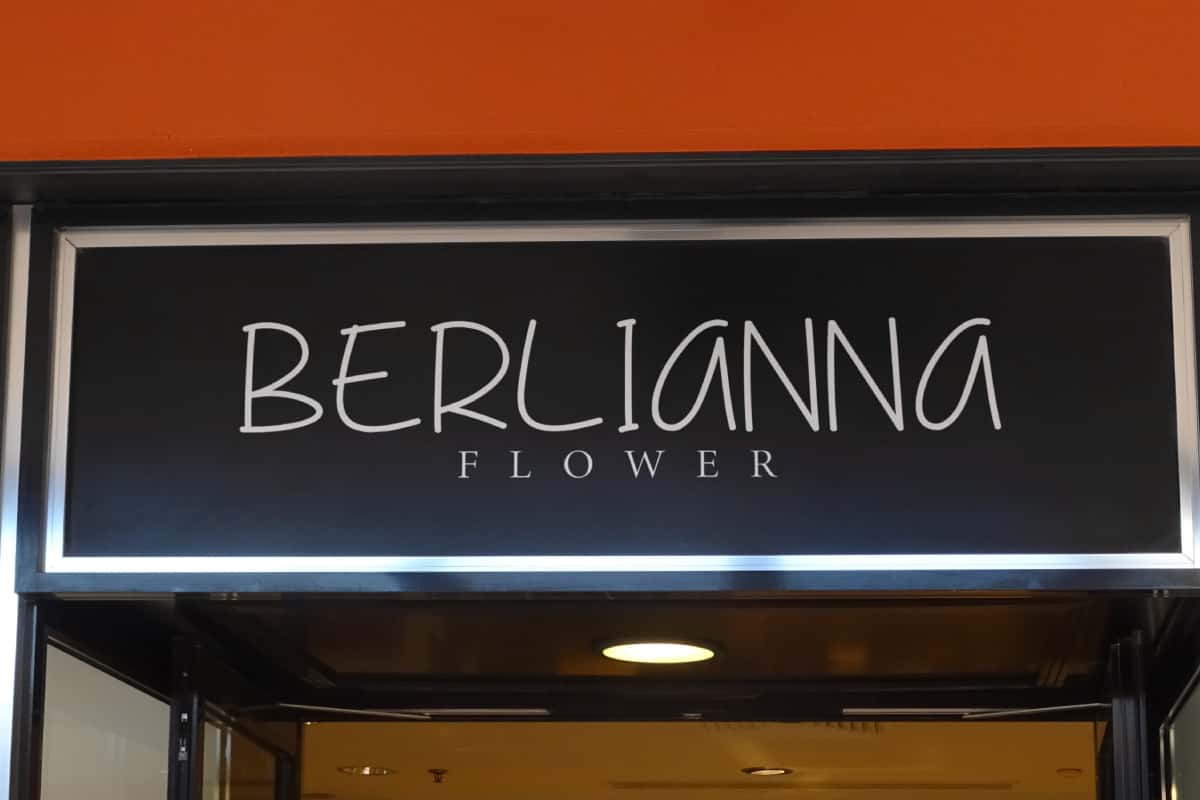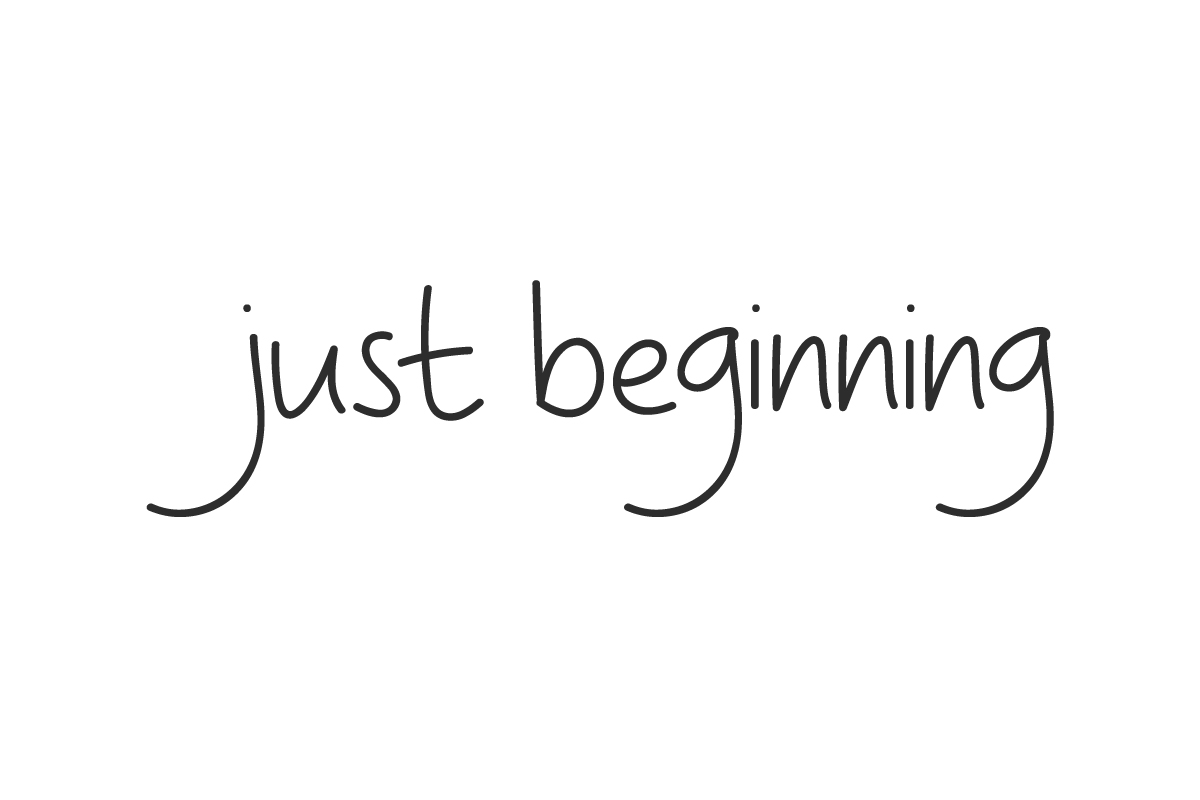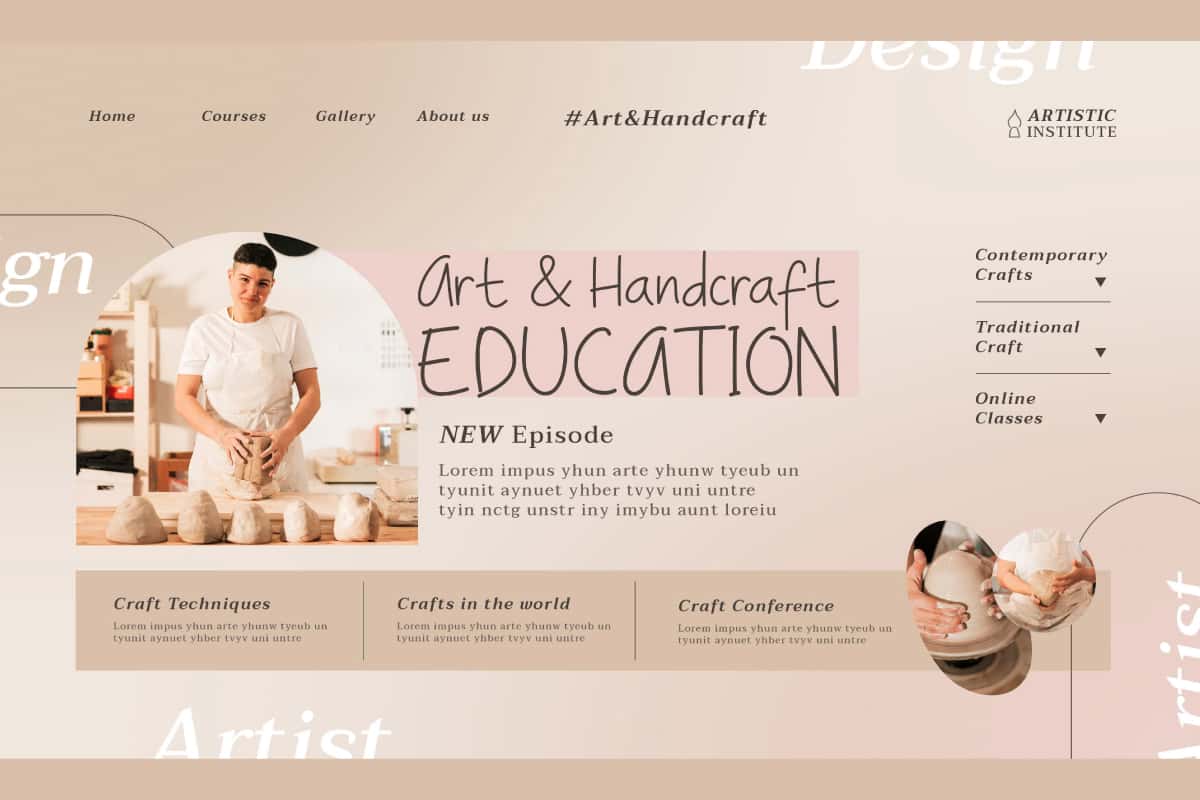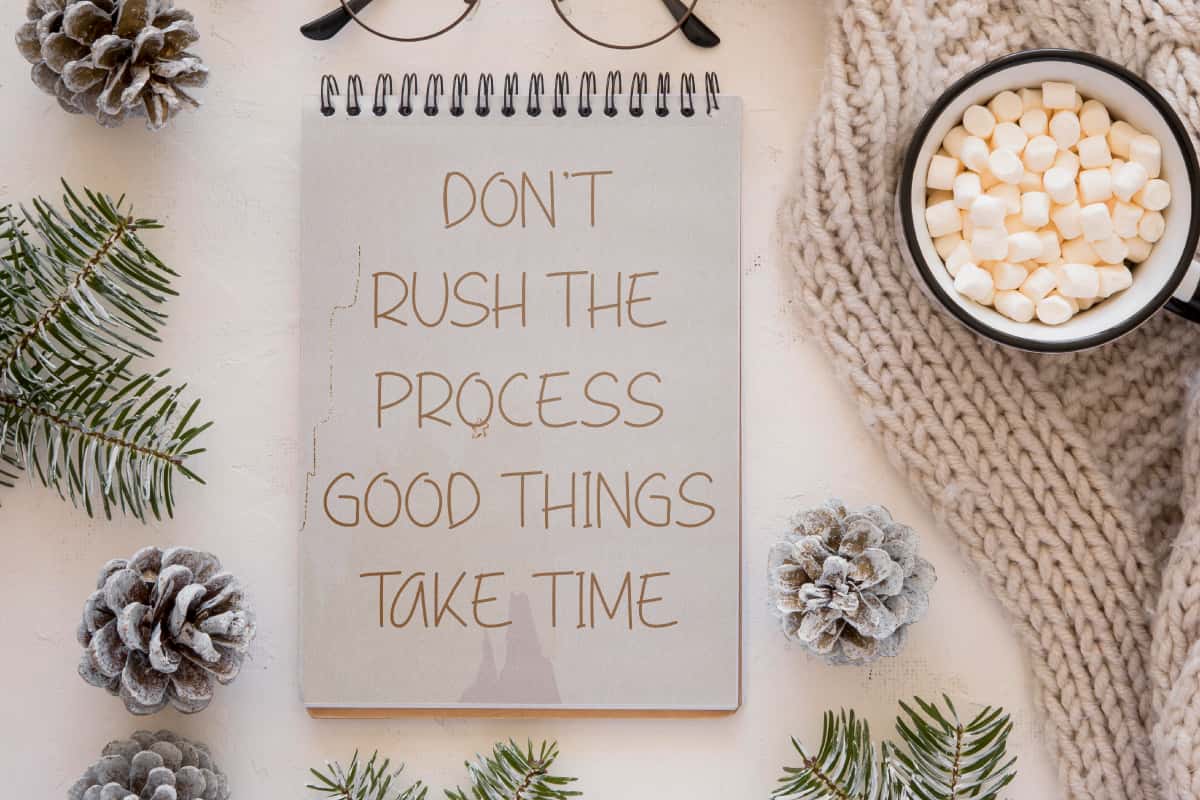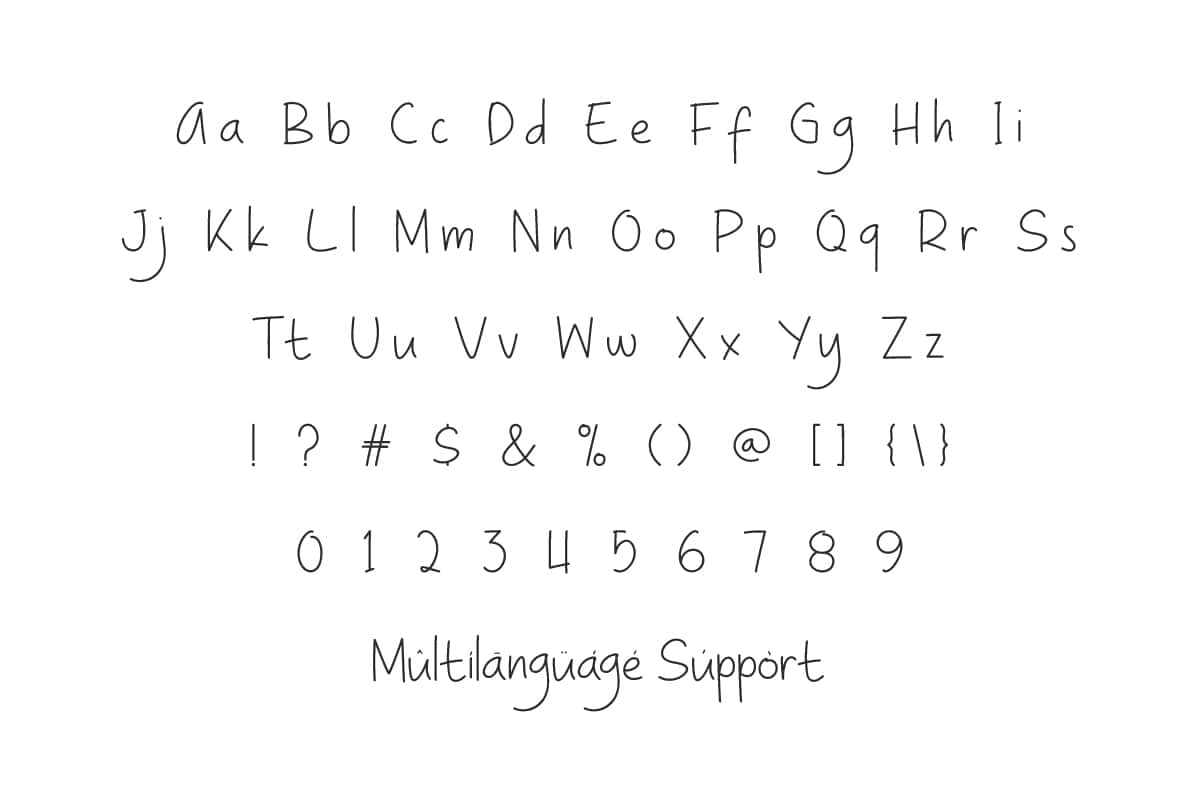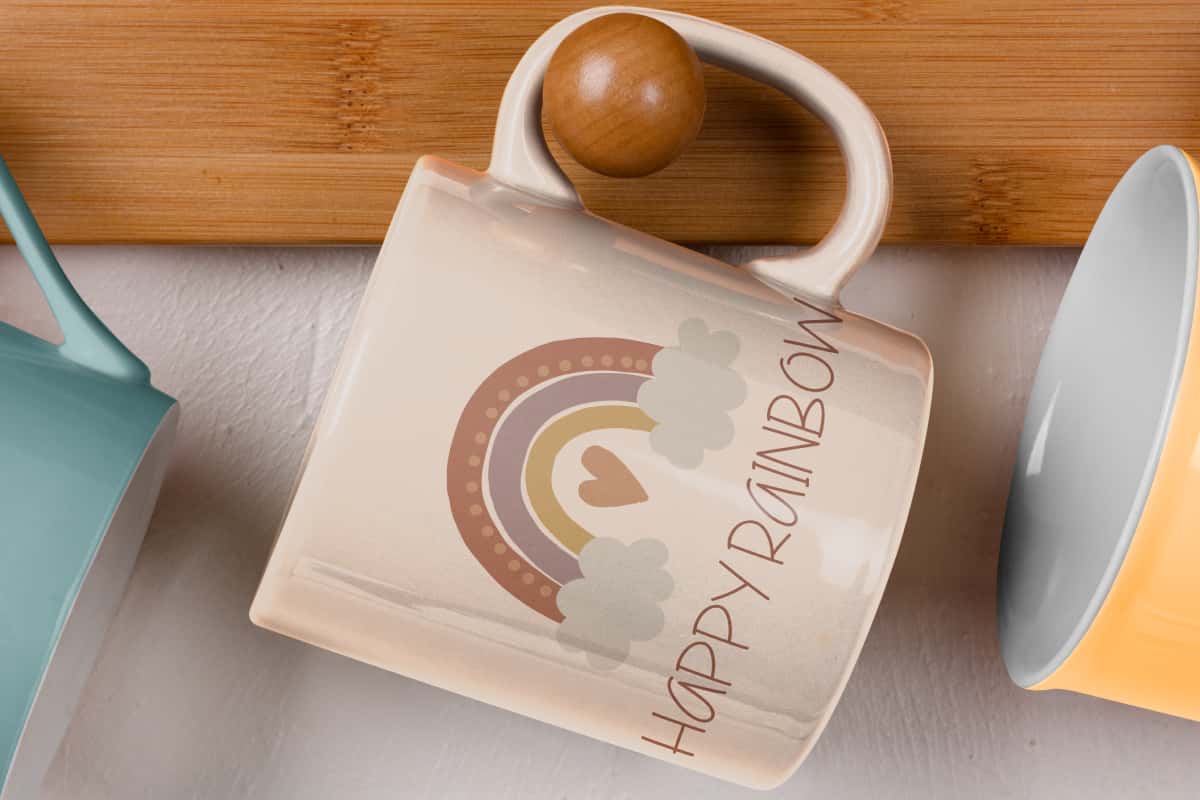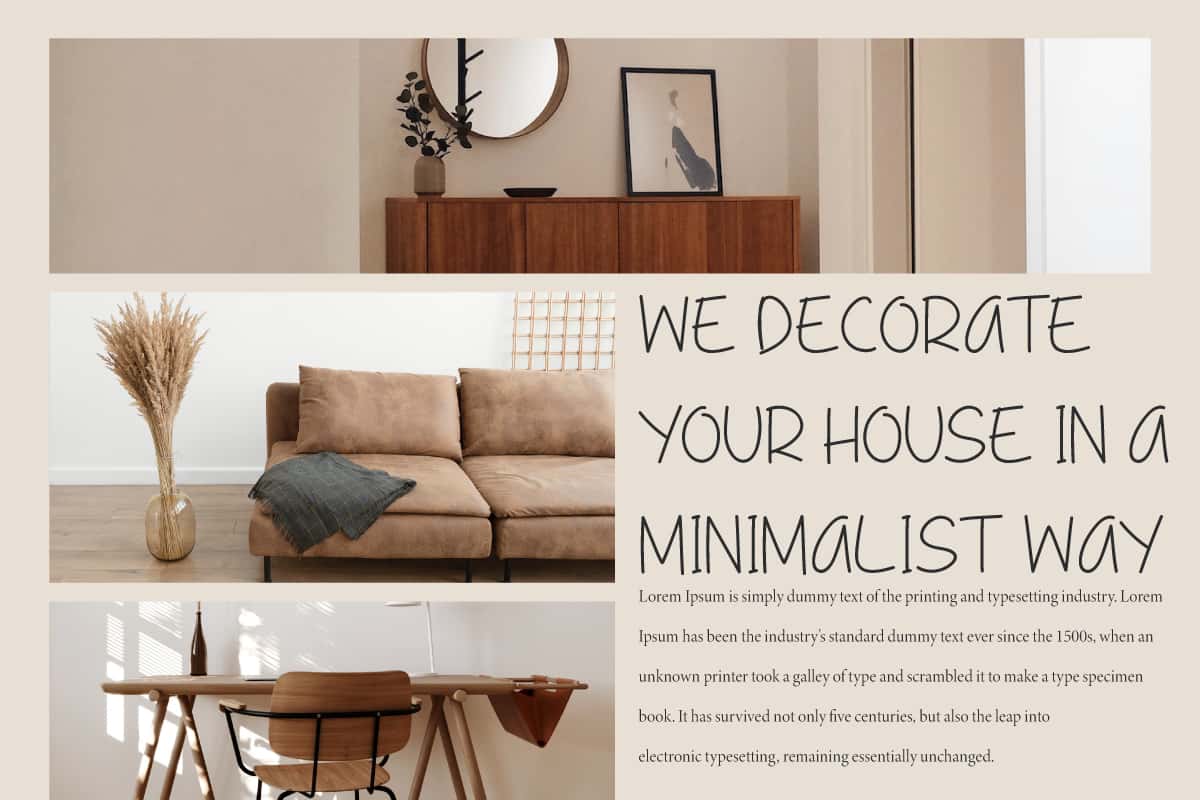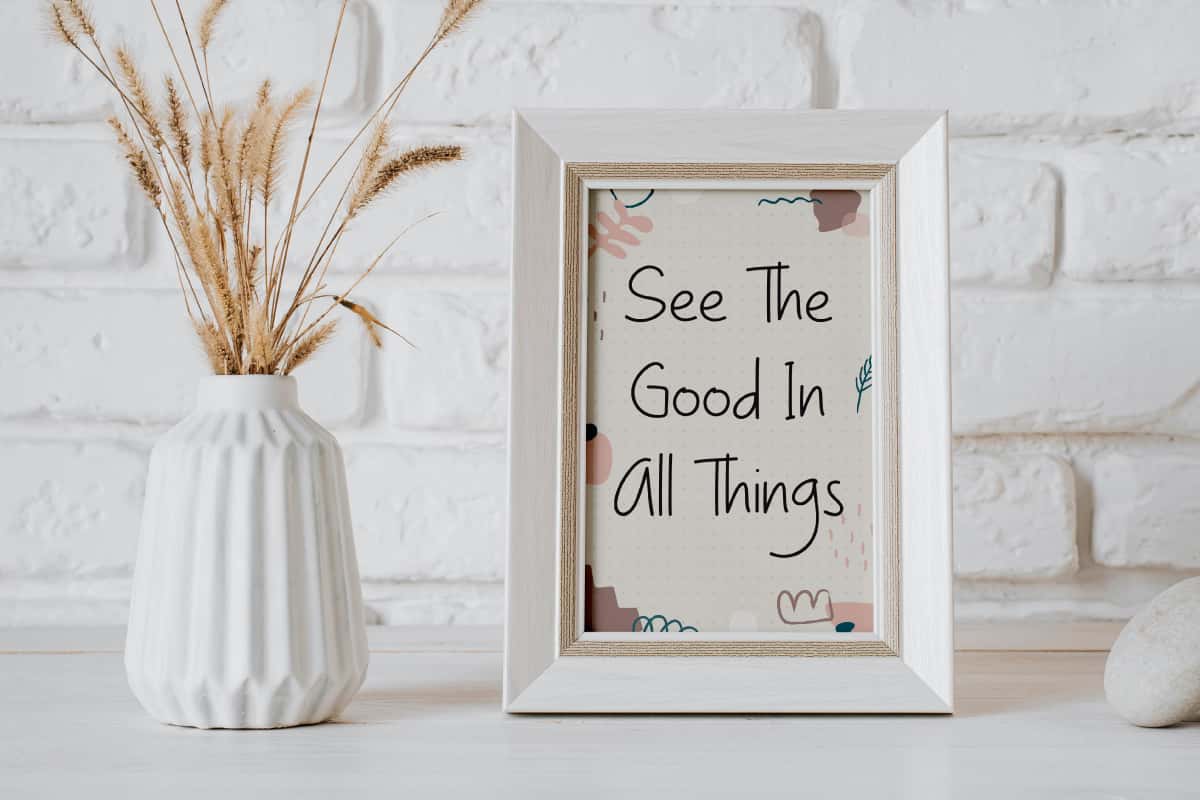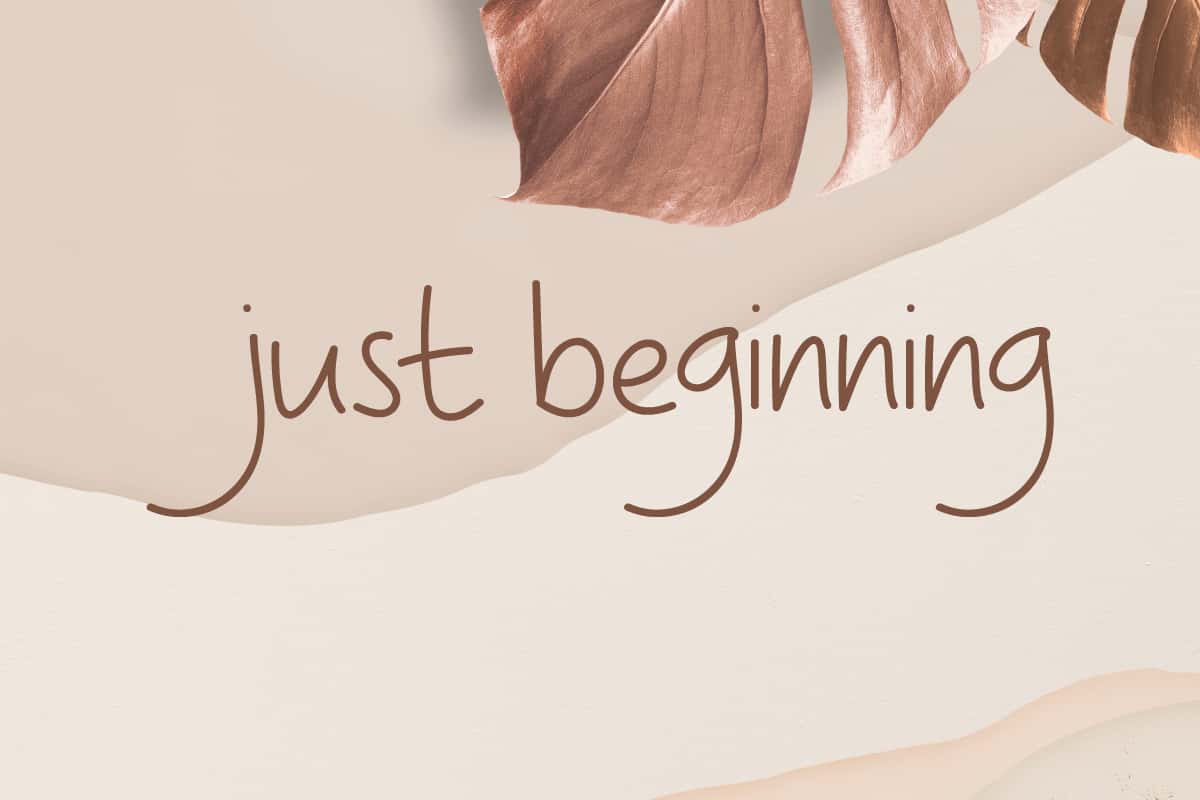
Just Beginning Font is a trendy organic handwritten font that exudes a carefree style while still looking stylish. Use for craft, florist, mugs, quotes, signage, web, etc.
Just Beginning Font is a casual handwriting font created with simplicity that combines the elegance and charm of a refined script. It is designed to enhance your creative projects with its touch of personal and sophisticated style. Perfect for banners, blogs, flyer, invitations, logos, printed materials, quotes, signage, stationery, stickers, titles, watermarks, website, and more.
Just Beginning Font includes a complete set of Basic Uppercase and Lowercase Characters, Numbers, Punctuation Marks and Symbols. The words flow easily and bring a touch of relaxation to your typography. This will allow for smooth transitions between letters and create a truly authentic feel. Perfect for architect, authors, cafes, children’s goods brands, education, florist, graphic design, handicraft, home furniture, interior design, photography, pottery, printing, publishing, restaurant, and more.